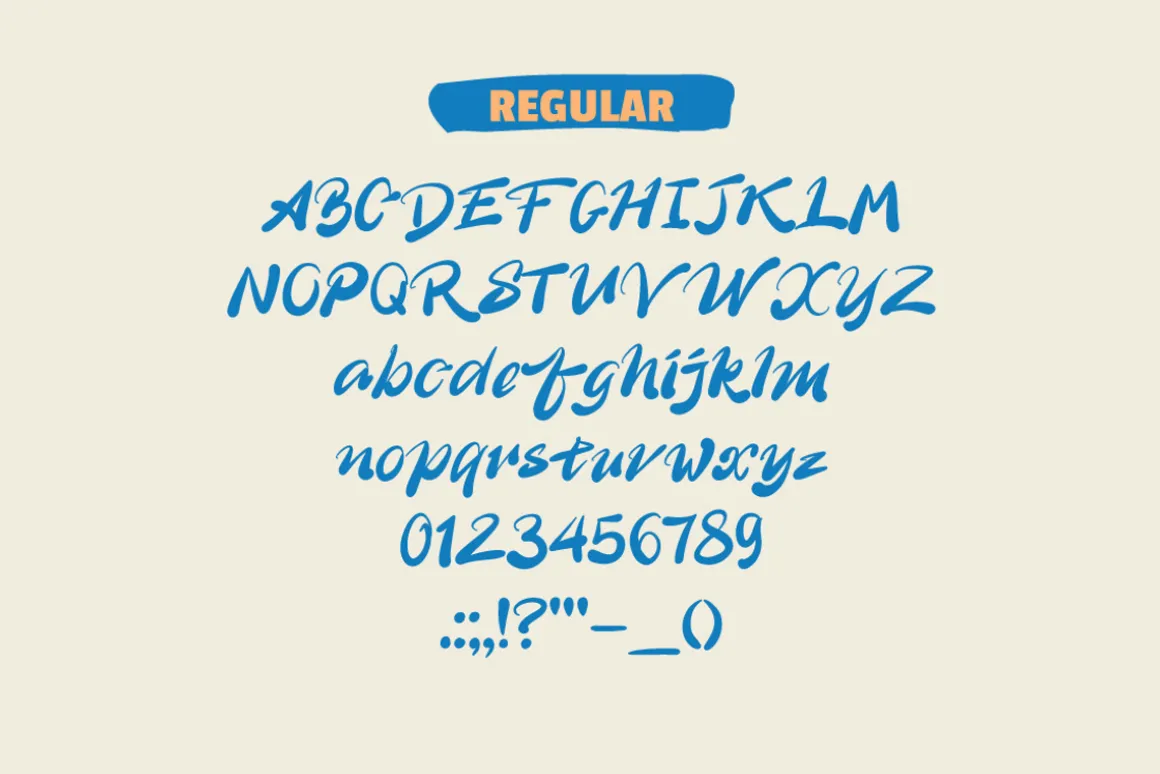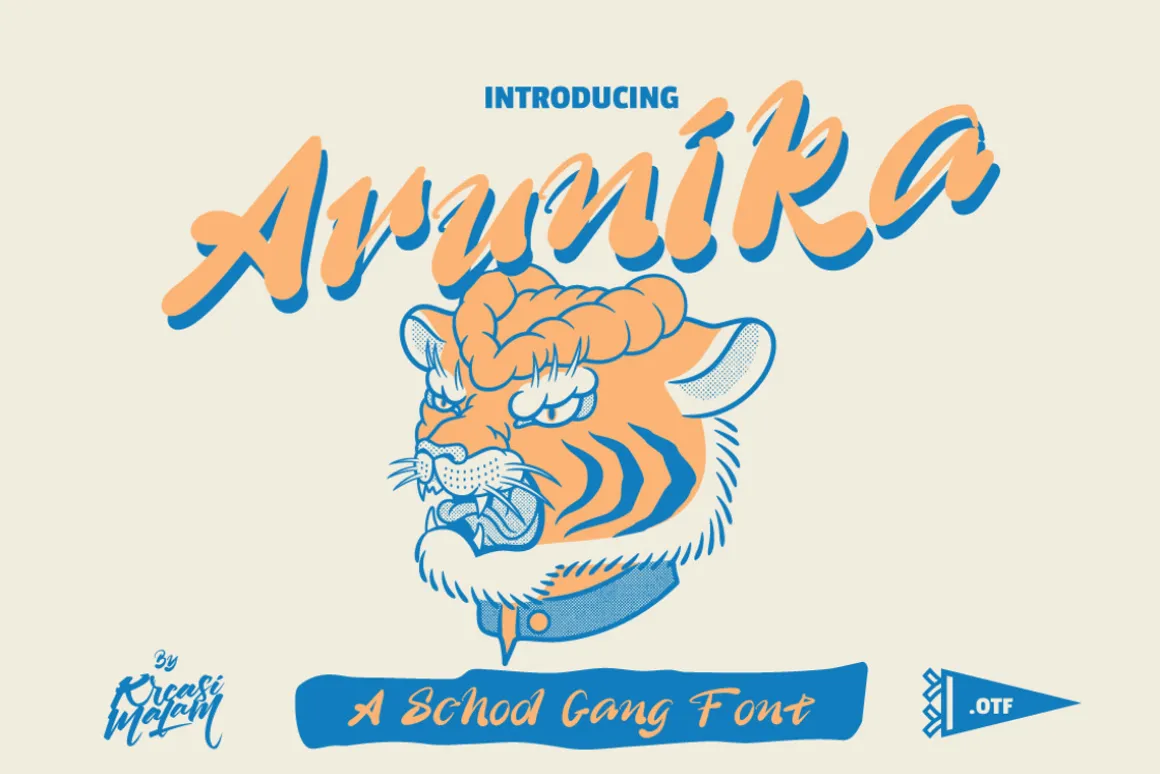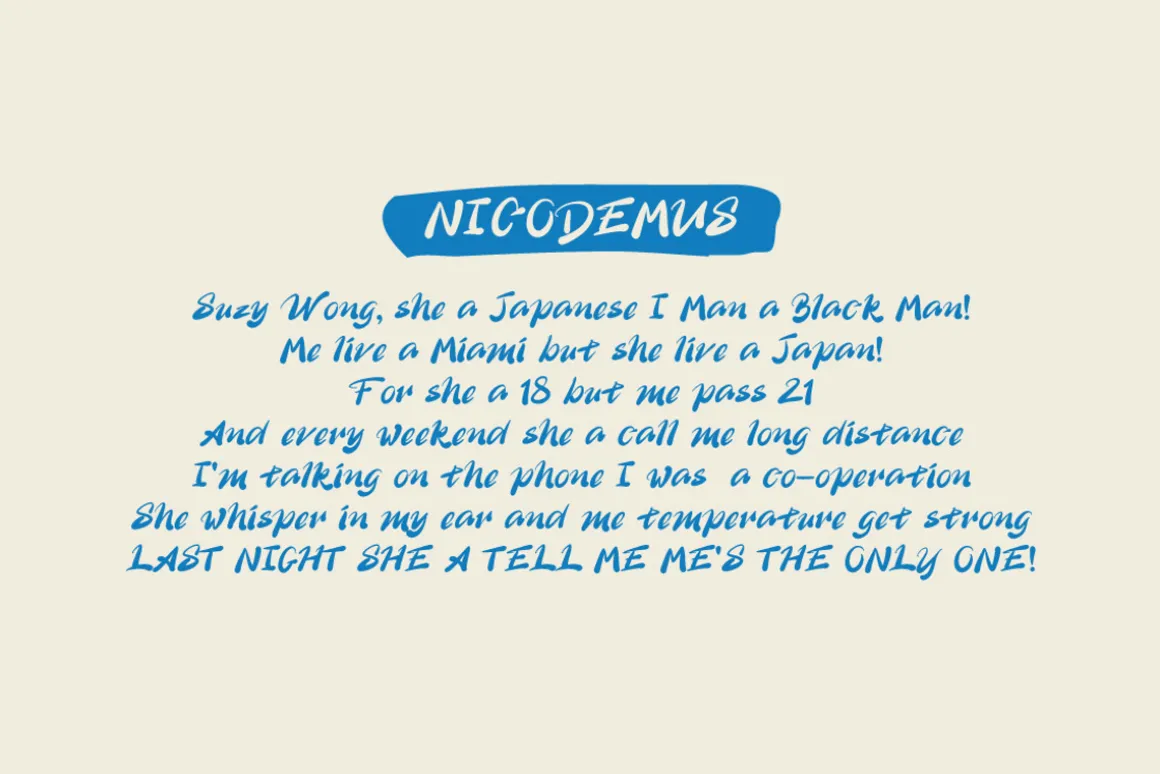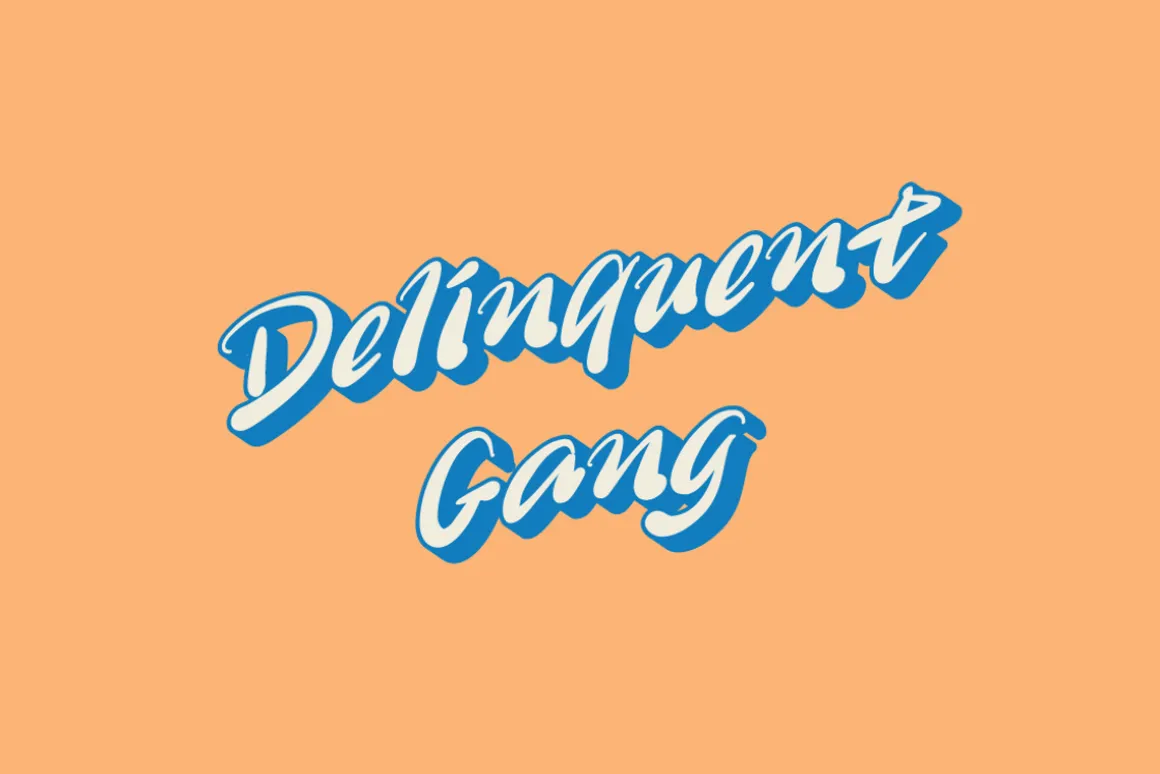
Arunika a handmade script font with unique style would be awesome for your design projects. It could be fitted for logos, quotes, t-shirts, posters or anything. Available in uppercase, lowercase, numerals and punctuation.